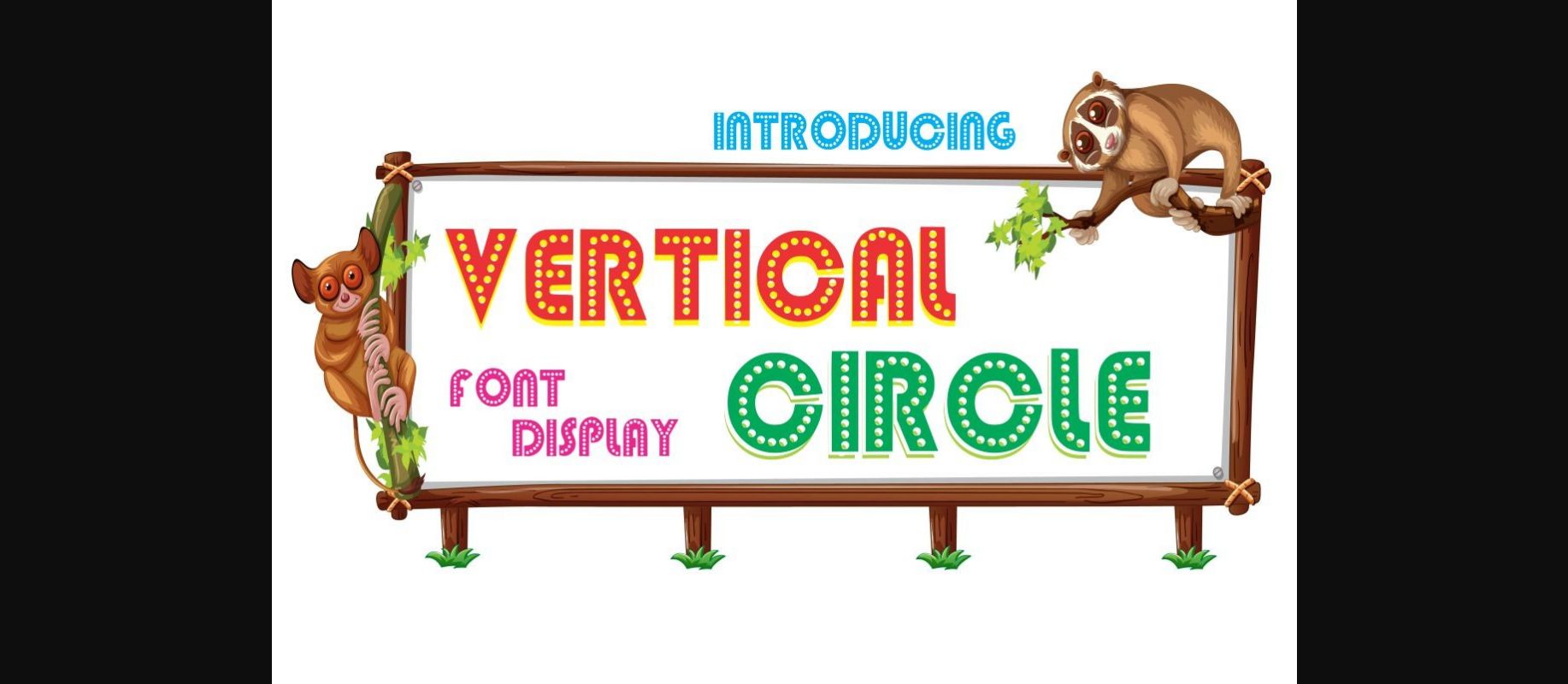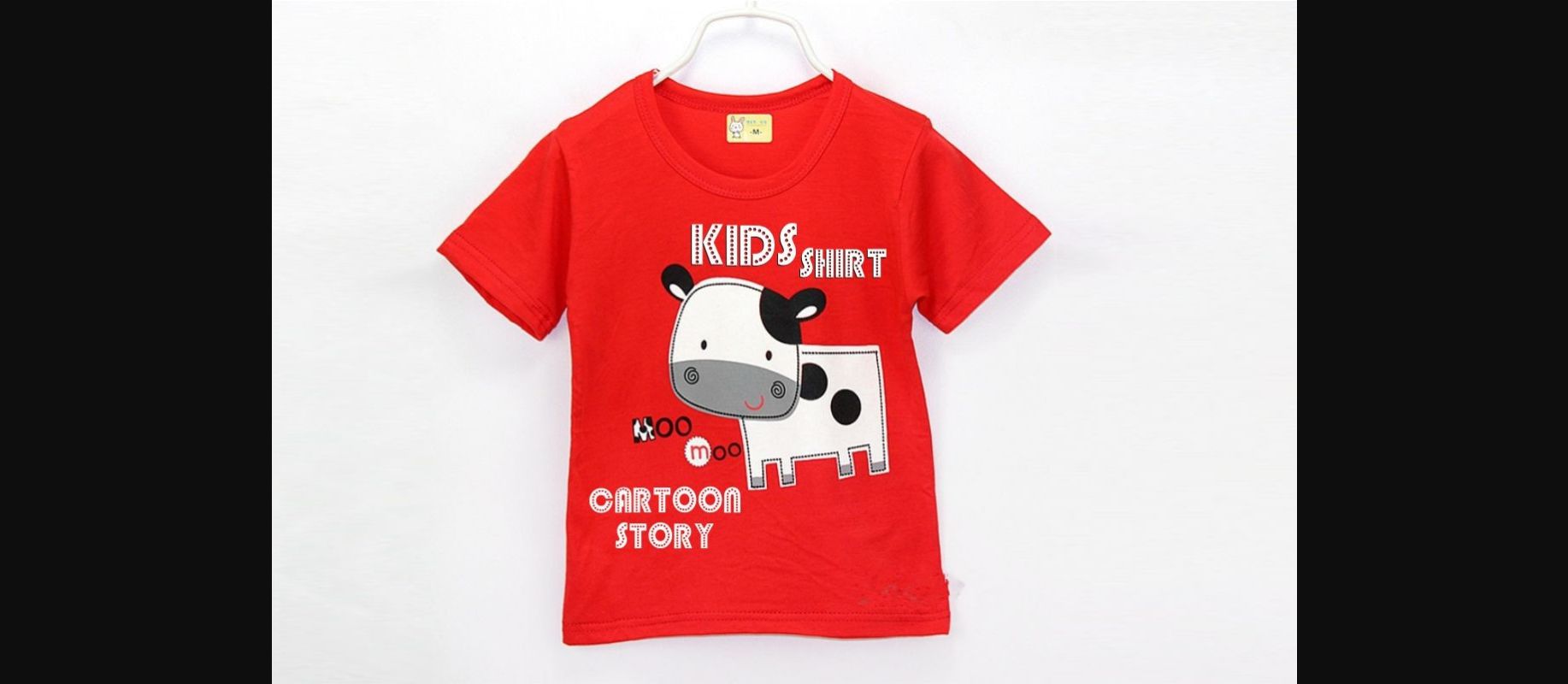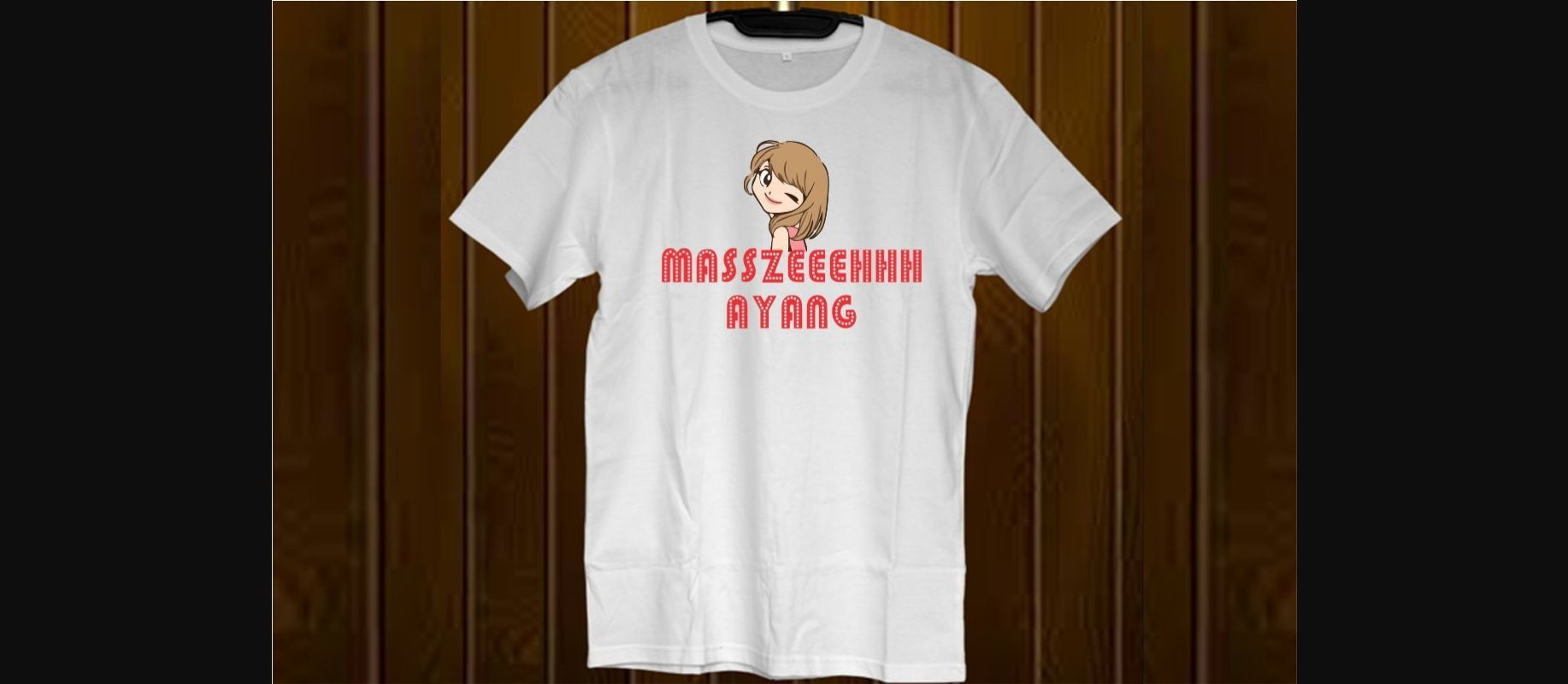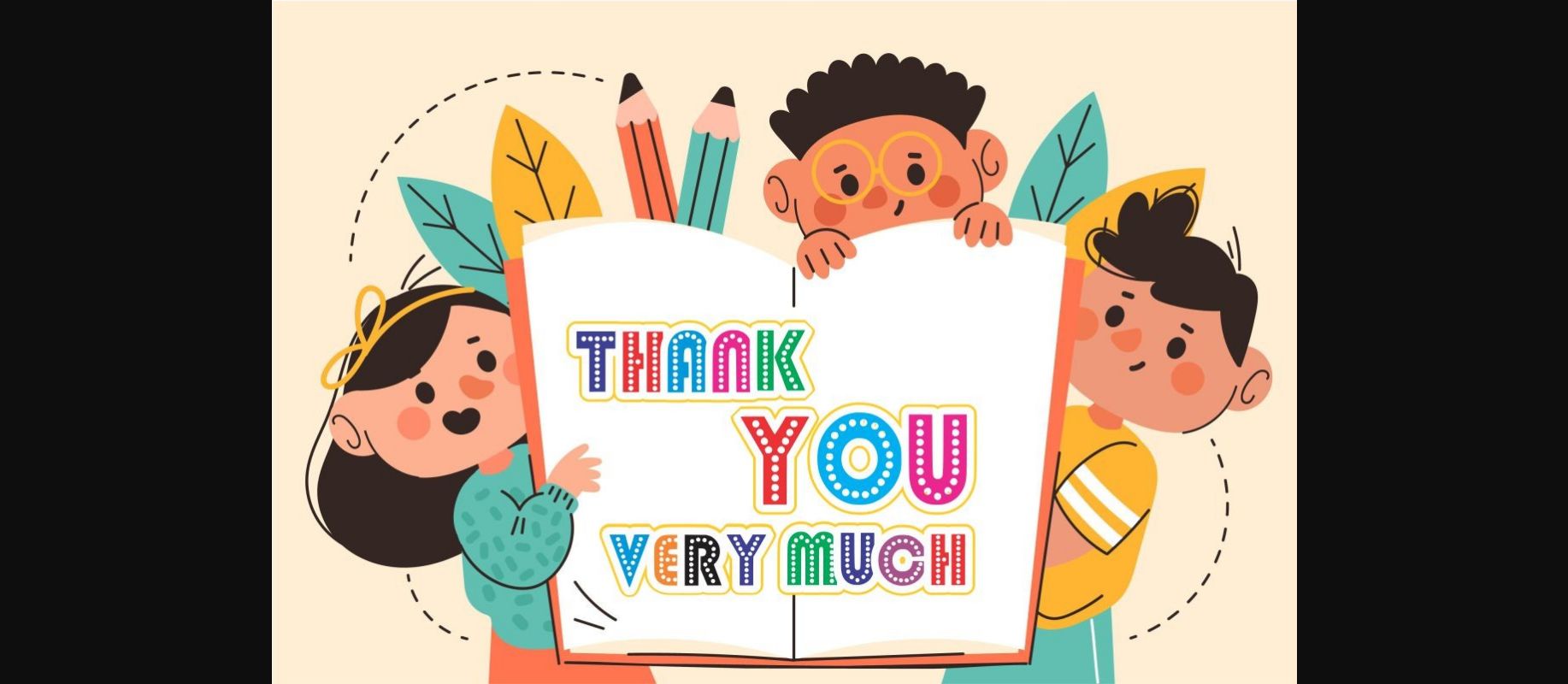
Vertical Circle Font
About Vertical Circle Font
Vertical circle is a very unique and attractive decorative font with circles in the middle. The bold appearance makes this font suitable for various creative designs. It will turn any creative idea into a truly dazzling one!